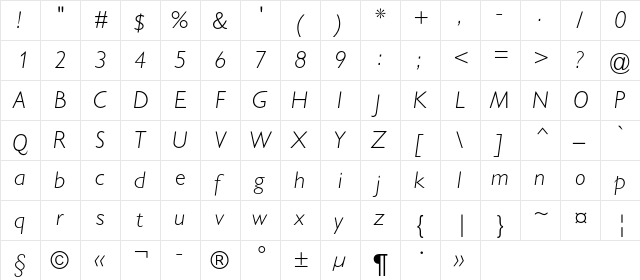
GillSansLightC Italic Font Preview
GillSansLightC Italic
Design Context for GillSansLightC Typeface
GillSansLightC is a composed and adaptable typeface that performs quietly and consistently across a wide range of design contexts. Its italic angle brings a sense of urgency and motion to the letterforms. The delicate stroke weight brings airiness and refinement to layouts.
Pro Tip: Use GillSansLightC for emphasis, pull quotes, and subheadings where its slanted energy can add rhythm to the layout.